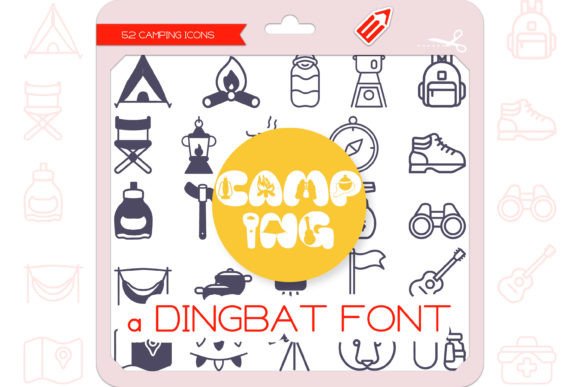
Camping Font: Elevate Your Designs with a Unique and Cute Dingbat Font
Are you a designer, crafter, or outdoor enthusiast looking for a unique and creative way to add a personal touch to your projects? Look no further than the Camping Font, a charming dingbat font that is sure to make your art stand out. With 52 icons in 2 styles (Outline & Filled-Outline), this font is perfect for anyone who loves camping, hiking, or simply spending time in the great outdoors.
What is the Camping Font?
The Camping Font is a specially designed dingbat font that features 52 unique icons, each carefully crafted to represent a different aspect of camping and outdoor adventure. From tent and campfire symbols to hiking boots and compass icons, this font has everything you need to add a touch of whimsy and personality to your designs.
Key Features of the Camping Font
- 52 unique icons: Each icon is carefully designed to be visually appealing and easy to recognize, making it perfect for use in a variety of projects.
- 2 styles: Outline & Filled-Outline: The Camping Font comes in two styles, allowing you to choose the one that best fits your design needs.
- Perfect for outdoor enthusiasts: Whether you’re designing a logo for a camping company or creating a craft project for an outdoor-themed event, this font is sure to be a hit.
How to Use the Camping Font
The Camping Font is versatile and can be used in a variety of projects, including:
- Logo design: Use the icons to create a unique and memorable logo for your outdoor-themed business or organization.
- Craft projects: Add a personal touch to your craft projects, such as handmade cards, scrapbook pages, and DIY decorations.
- Graphic design: Use the font to create eye-catching graphics for social media, websites, and marketing materials.
- Stationery and invitations: Add a touch of whimsy to your stationery and invitations with the Camping Font.
Benefits of Using the Camping Font
By using the Camping Font, you can:
- Add a personal touch to your designs: The unique and cute icons will help your designs stand out and make them more memorable.
- Save time: With 52 icons to choose from, you can quickly and easily find the perfect symbol to represent your brand or message.
- Enhance your brand: The Camping Font is perfect for outdoor-themed businesses or organizations, helping to reinforce your brand and create a cohesive visual identity.
- The Camping Font is a unique and cute dingbat font featuring 52 icons in 2 styles.
- The font is perfect for designers, crafters, and outdoor enthusiasts.
- It can be used in a variety of projects, including logo design, craft projects, graphic design, and stationery.
- The Camping Font can help add a personal touch to your designs, save time, and enhance your brand.